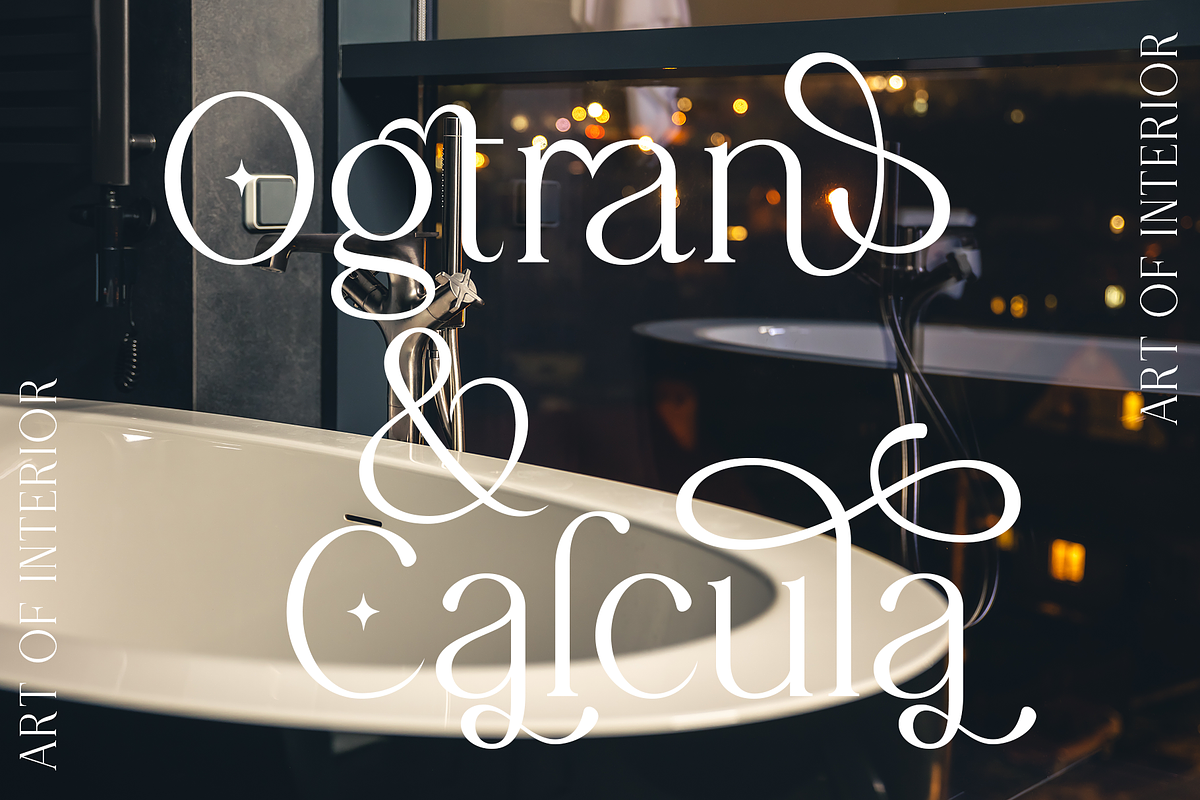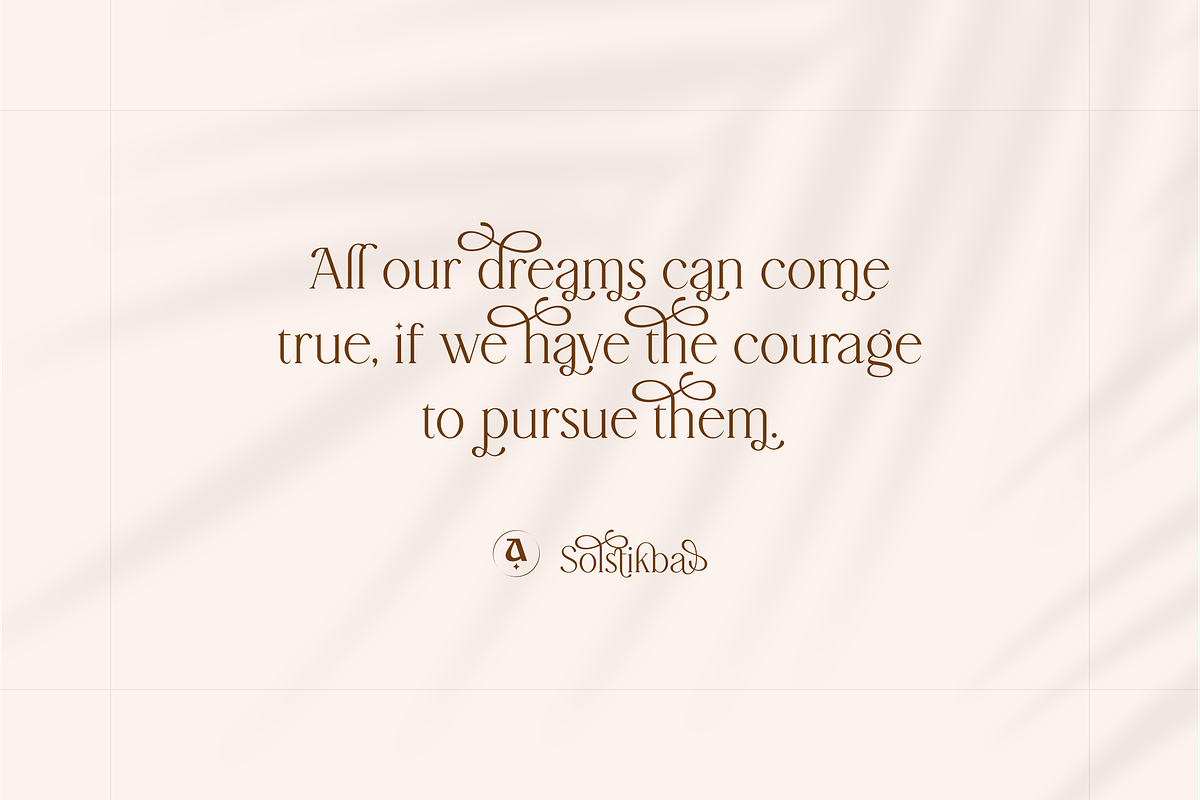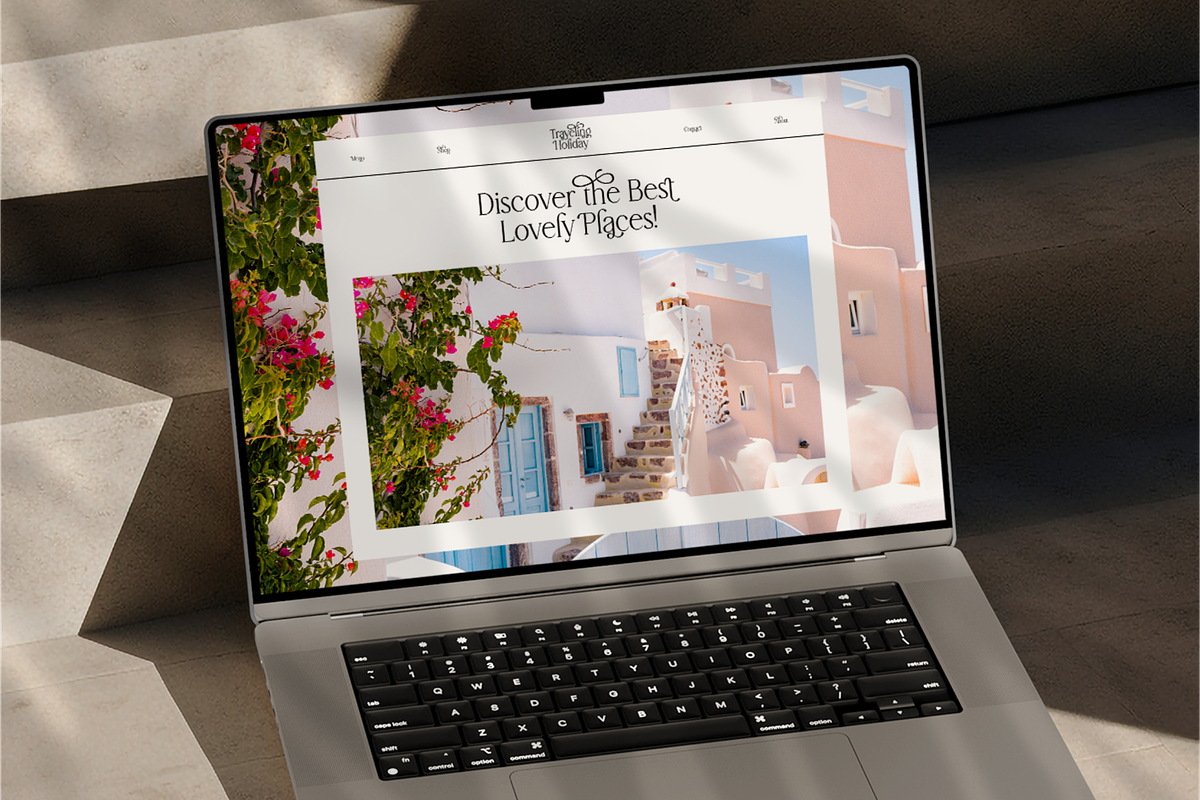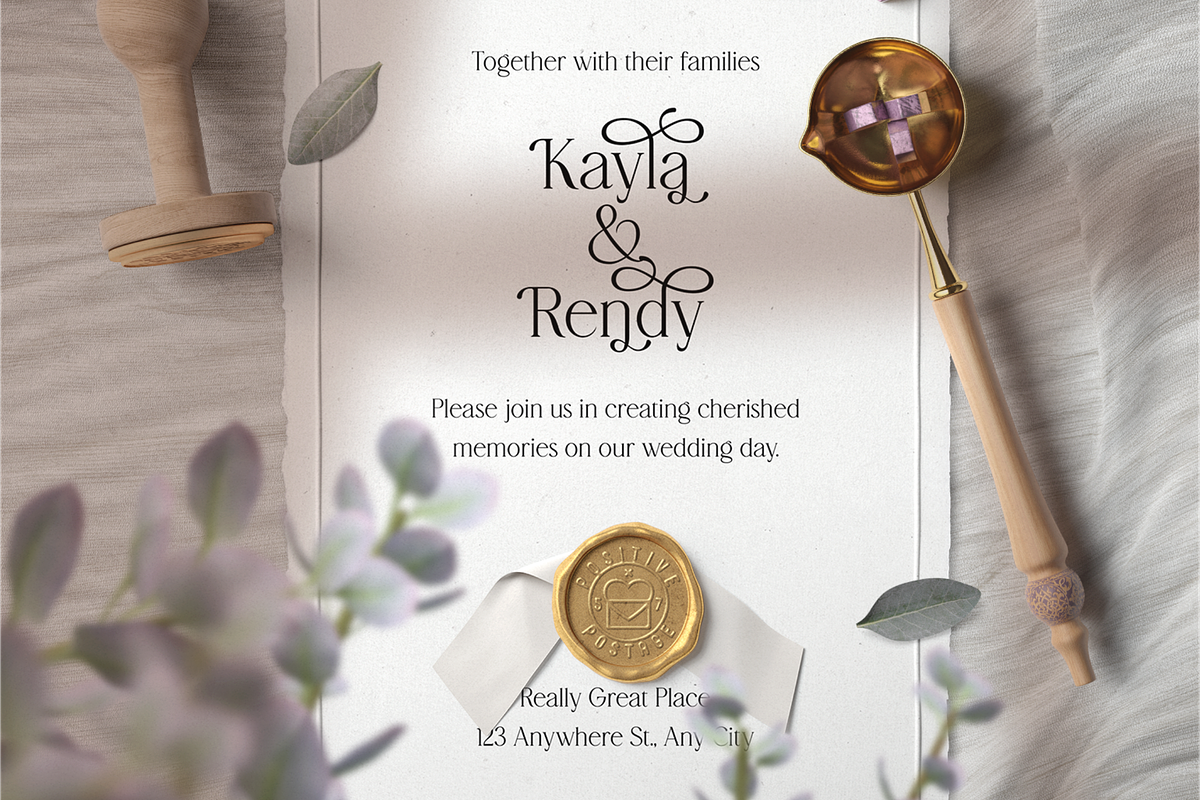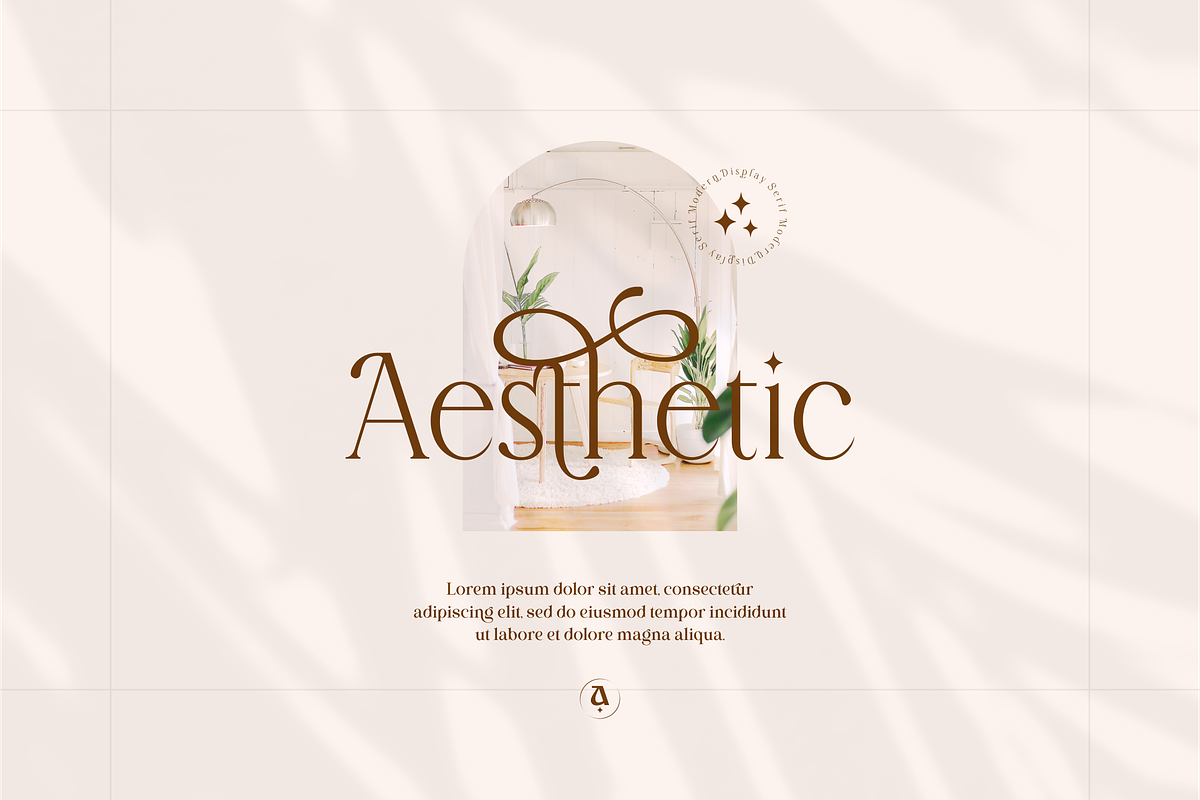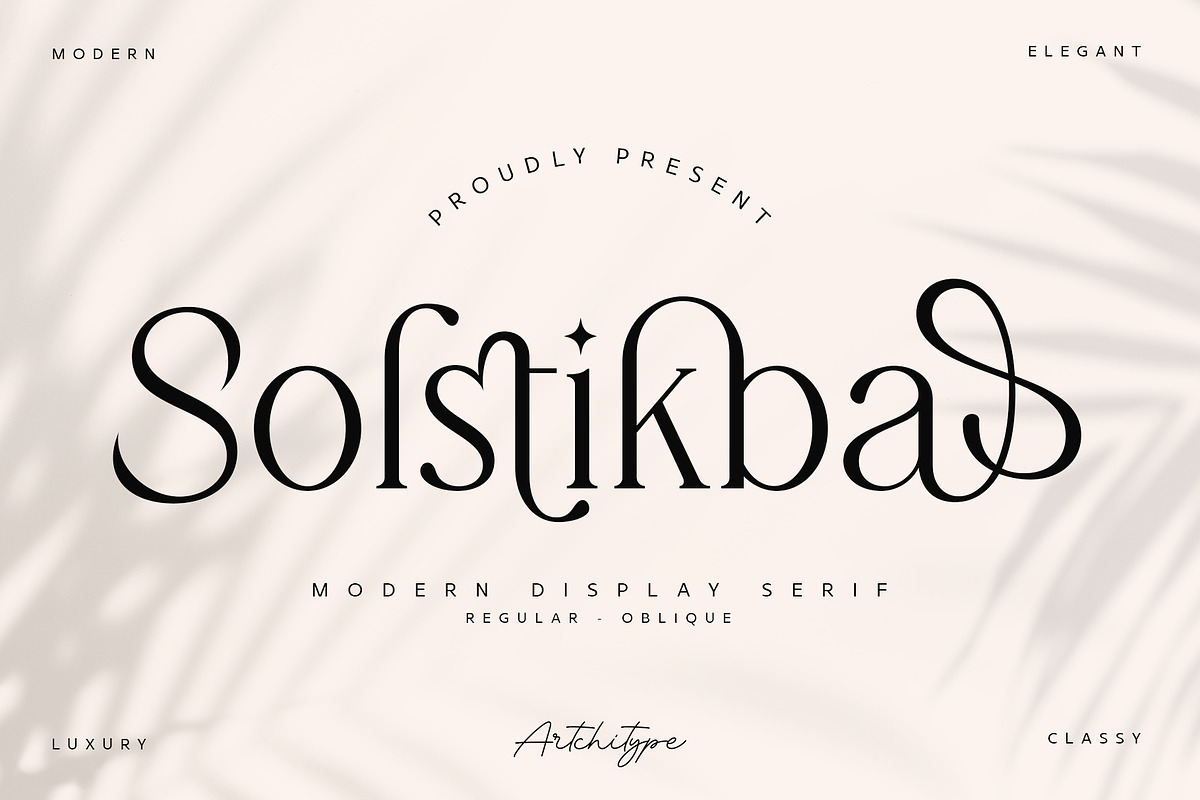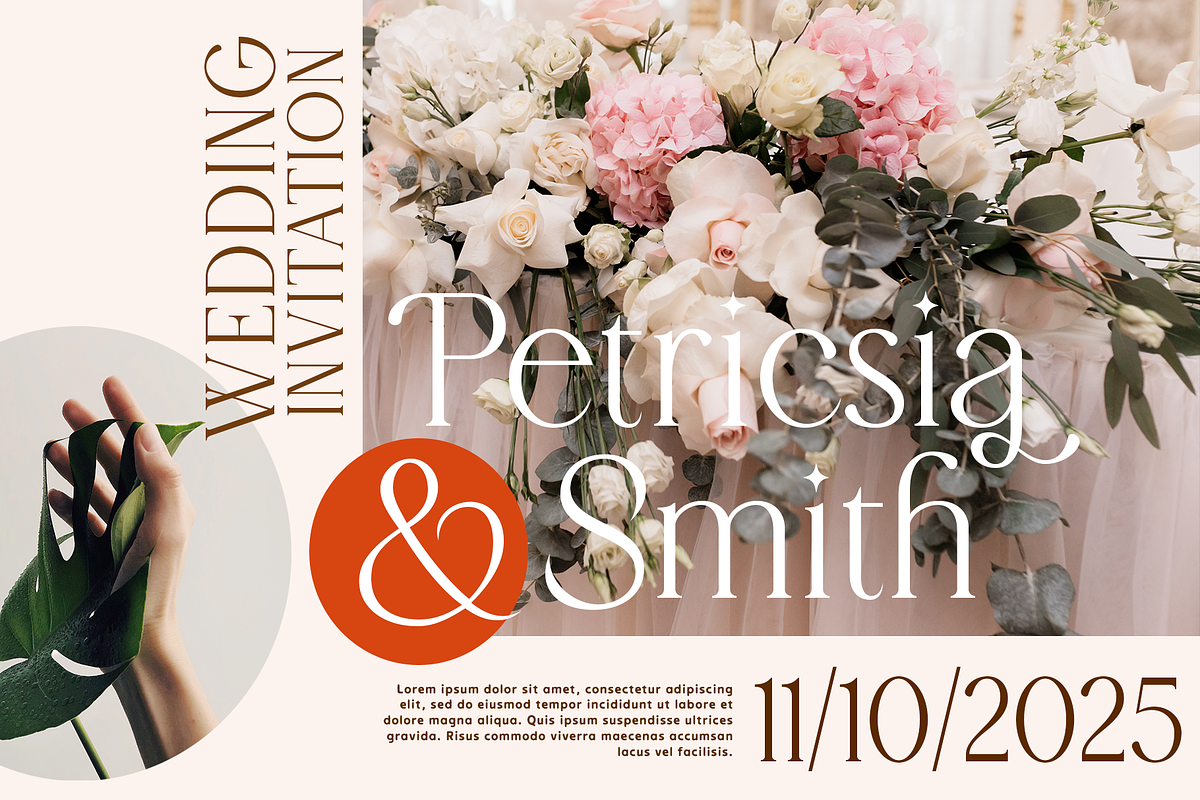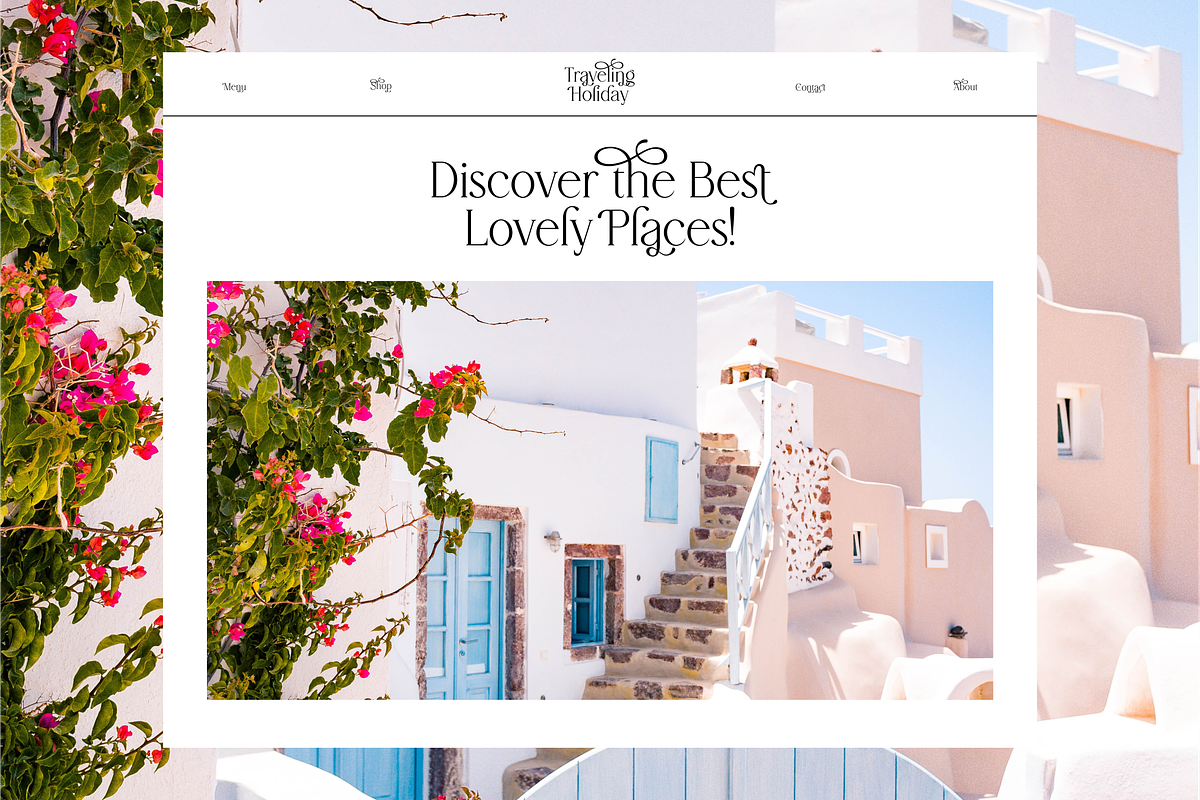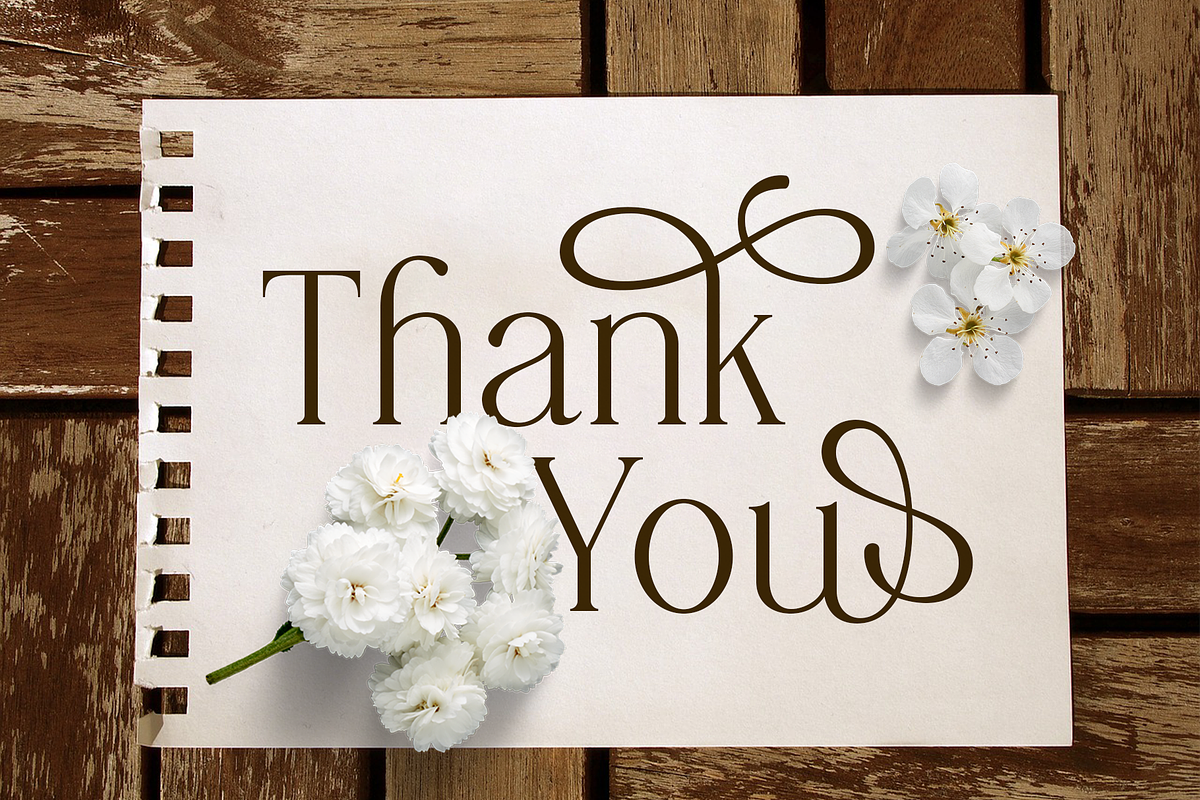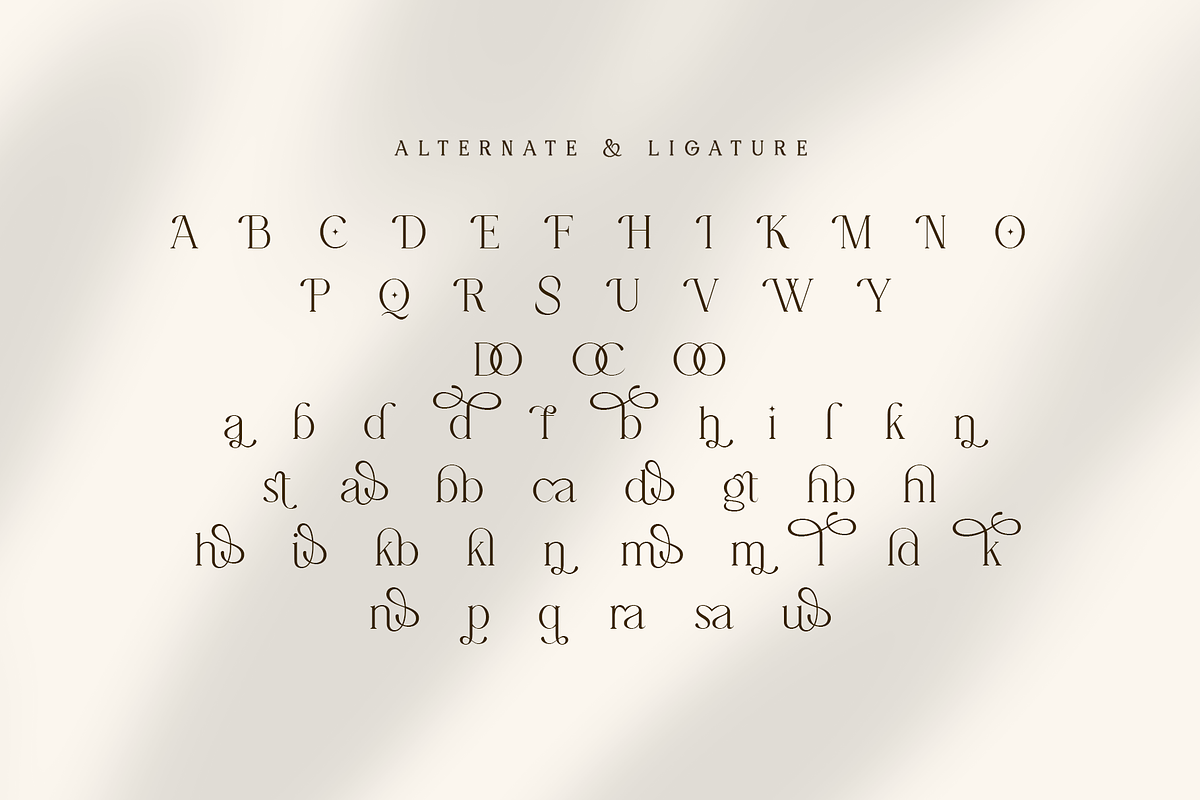
Solstikba - Modern Display Serif
Solstikba is classy display serif font with 270+ characters. Includes uppercase, lowercase characters, multilingual, alternates and most common other characters.
Solstikba is perfect for logos, social media posts, product packaging, product designs, and other projects.